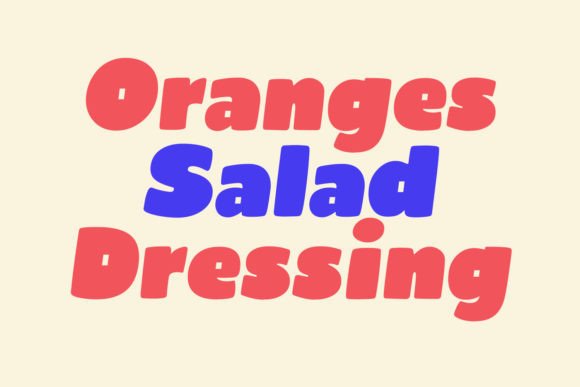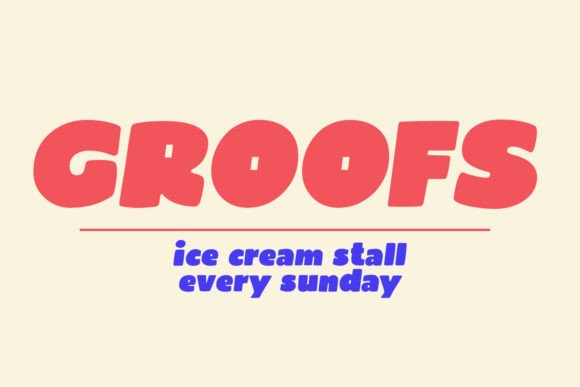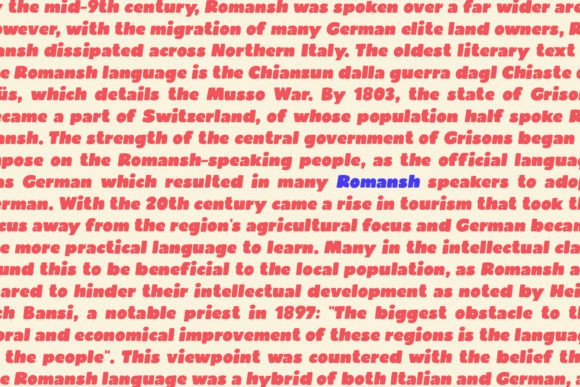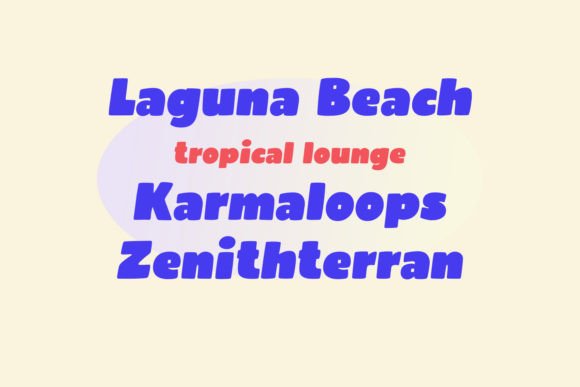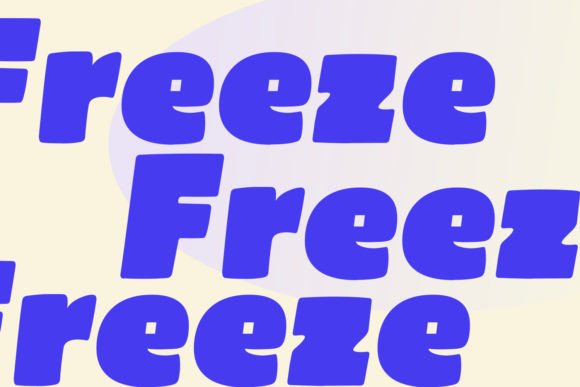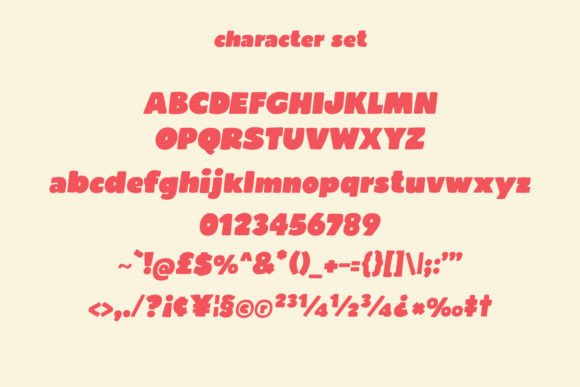
Introducing Bearty Font: The Enchanting and Modern Display Font
Are you looking for a font that can add a touch of magic to your designs? Look no further than Bearty Font! Bearty is an enchanting and modern display font that is sure to captivate your audience with its energetic and attractive style. In this article, we’ll dive into the world of Bearty Font and explore its features, benefits, and uses.
What is Bearty Font?
Bearty Font is a modern display font that is designed to add a variety of feelings to your designs. It’s an energetic and attractive font that is perfect for creating eye-catching headlines, titles, and captions. With its unique and enchanting style, Bearty Font is sure to make your designs stand out from the crowd.
Key Features of Bearty Font
- Enchanting and Modern Design: Bearty Font features an enchanting and modern design that is sure to captivate your audience.
- Energetic and Attractive Style: The font has an energetic and attractive style that can add a variety of feelings to your designs.
- Perfect for Display Text: Bearty Font is perfect for display text, including headlines, titles, and captions.
- Easy to Read: Despite its unique design, Bearty Font is easy to read, making it perfect for use in a variety of design projects.
Benefits of Using Bearty Font
So, why should you use Bearty Font in your designs? Here are just a few benefits of using this enchanting font:
- Adds a Touch of Magic: Bearty Font adds a touch of magic to your designs, making them more captivating and engaging.
- Perfect for Creative Projects: The font is perfect for creative projects, including branding, advertising, and marketing materials.
- Easy to Pair with Other Fonts: Bearty Font is easy to pair with other fonts, making it versatile and easy to use.
- Supports Multiple Languages: The font supports multiple languages, making it perfect for use in a variety of design projects.
Uses of Bearty Font
Bearty Font is a versatile font that can be used in a variety of design projects, including:
- Branding and Logo Design: Use Bearty Font to create eye-catching logos and branding materials.
- Advertising and Marketing: The font is perfect for use in advertising and marketing materials, including billboards, posters, and flyers.
- Web Design: Use Bearty Font to add a touch of magic to your website’s design.
- Social Media Graphics: The font is perfect for use in social media graphics, including Facebook posts, Instagram stories, and Twitter headers.
Tips for Using Bearty Font
Here are a few tips for using Bearty Font in your designs:
- Use it Sparingly: Use Bearty Font sparingly to add emphasis to your design.
- Pair it with Other Fonts: Pair Bearty Font with other fonts to create a unique and visually appealing design.
In conclusion, Bearty Font is an enchanting and modern display font that is sure to captivate your audience with its energetic and attractive style. With its unique design, versatility, and ease of use, Bearty Font is perfect for a variety of design projects, including branding, advertising, web design, and social media graphics. So why not give Bearty Font a try and add a touch of magic to your designs?